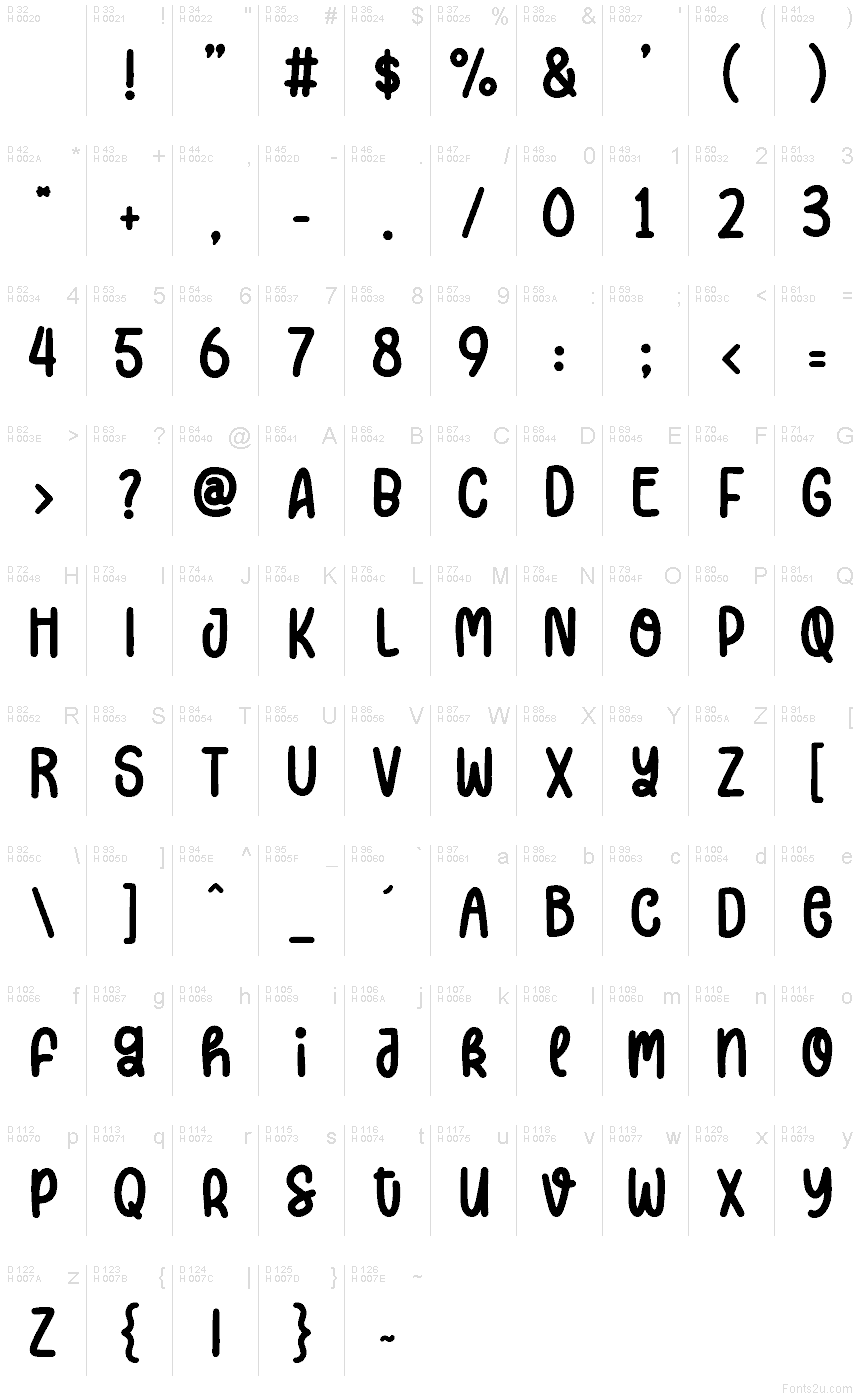
Maple Love
Maple Love font by Dm Letter Studio - Dimas Prasetyo is a free brush display font. Thick, inky strokes and soft, rounded edges give it a friendly bounce, like paint laid down with a juicy marker. The rhythm is lively but legible, with even color and a touch of wobble that feels warm and human—great when you want handmade energy without losing clarity.
Using Maple Love, headlines pop on kids’ products, bakery and café menus, greeting cards, stickers, event posters, and playful social graphics. The chunky forms hold up at large sizes and stay readable on small labels thanks to generous counters and spacing. For balance, pair this free font with a clean geometric sans in small text, and let Maple Love take the spotlight for titles and calls to action.